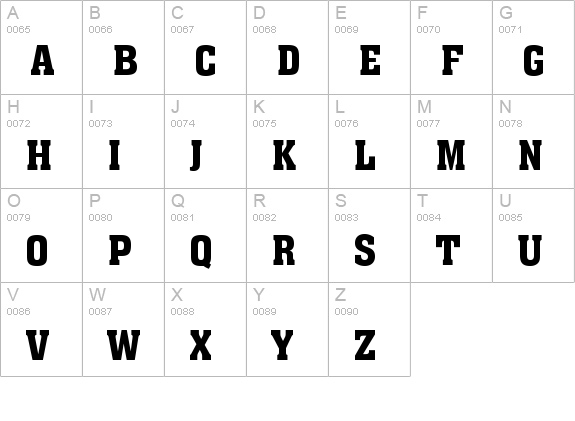
Aachen Font Details
Introducing Aachen, a timeless and versatile font that effortlessly combines elegance and readability. With its clean lines and classic design, Aachen is perfect for a wide range of projects, from branding and logo design to editorial layouts and signage. What sets Aachen apart is not only its aesthetic appeal but also its accessibility. This font is available for free, making it an ideal choice for budget-conscious designers and creatives. You can easily download Aachen at FontsMarket.com, where it is freely available to all. Whether you're crafting a sophisticated invitation, designing a professional website, or creating eye-catching posters, Aachen delivers the perfect blend of style and functionality. Its legibility ensures that your message is clear and easy to read, while its timeless charm adds a touch of elegance to your project. Aachen's versatility extends beyond its use in print or digital designs. It is equally suitable for both small and large-scale applications, making it an excellent choice for everything from business cards to billboards. Its bold and distinct letterforms make a lasting impression, ensuring that your message stands out in any context. In addition to its aesthetic appeal, Aachen also boasts a comprehensive character set, including uppercase letters, numerals, punctuation marks, and special symbols. This extensive range of glyphs allows you to fully customize your design and add unique touches to your typography. Whether you're a seasoned designer or just starting out, Aachen is a font that will effortlessly elevate your work. Its timeless design, easy accessibility, and versatility make it a must-have in any designer's toolkit. Don't miss out on the opportunity to download Aachen for free at FontsMarket.com and unleash your creativity today.